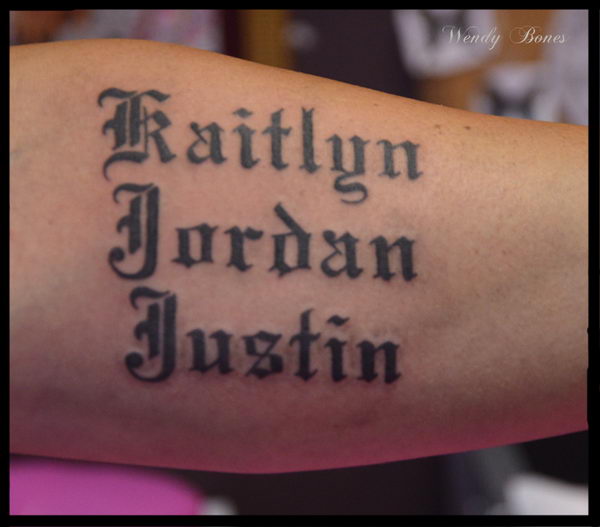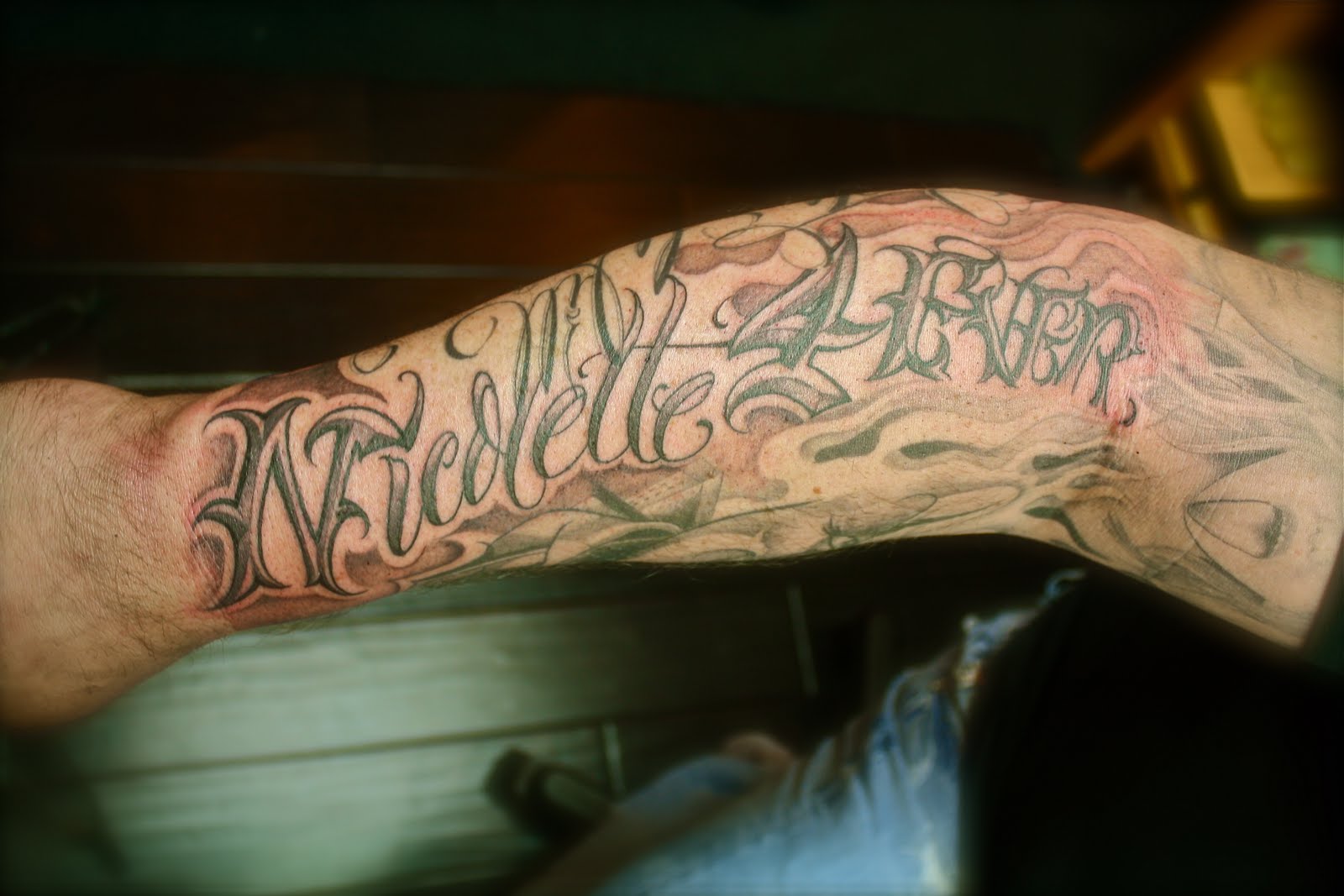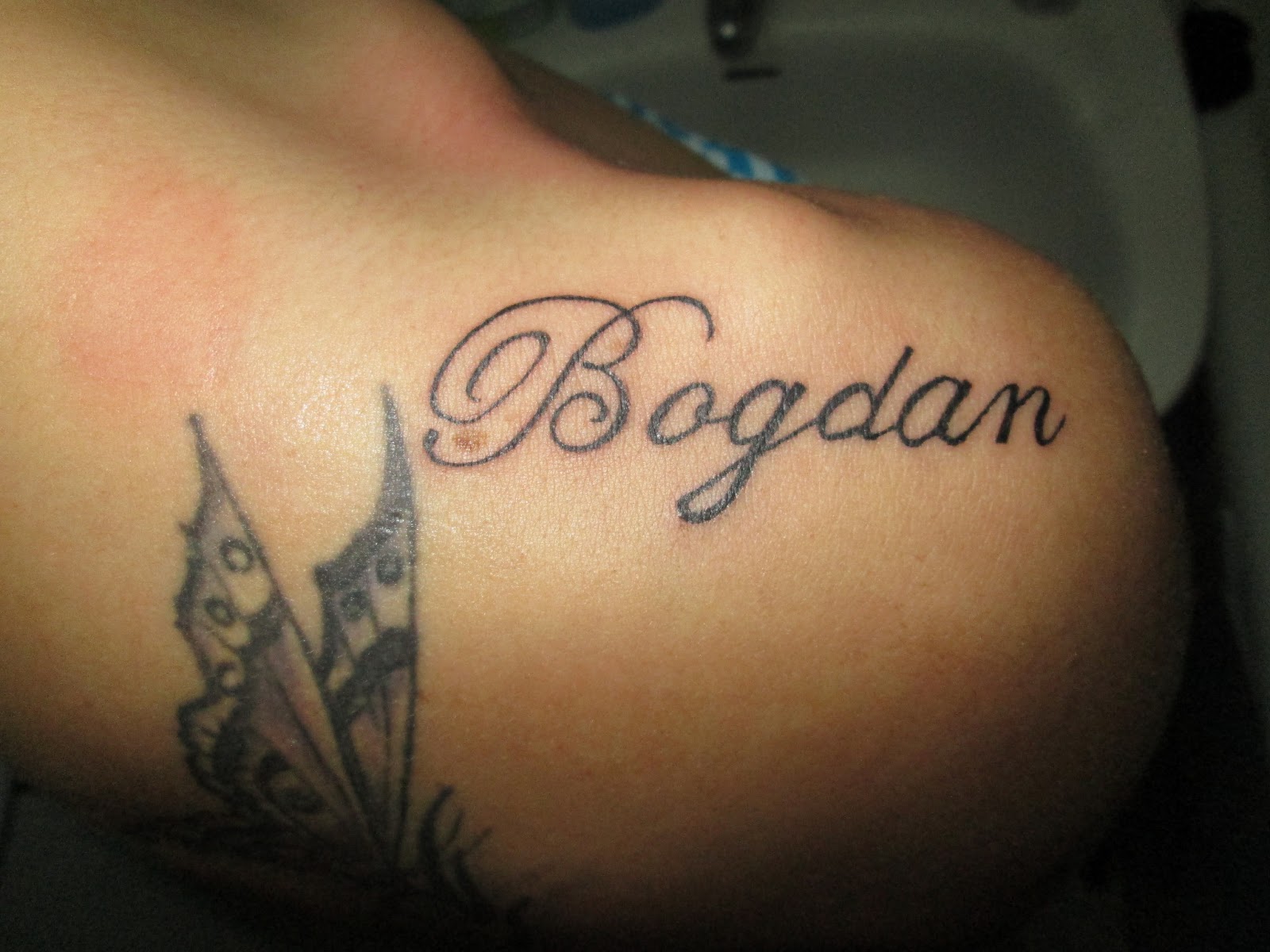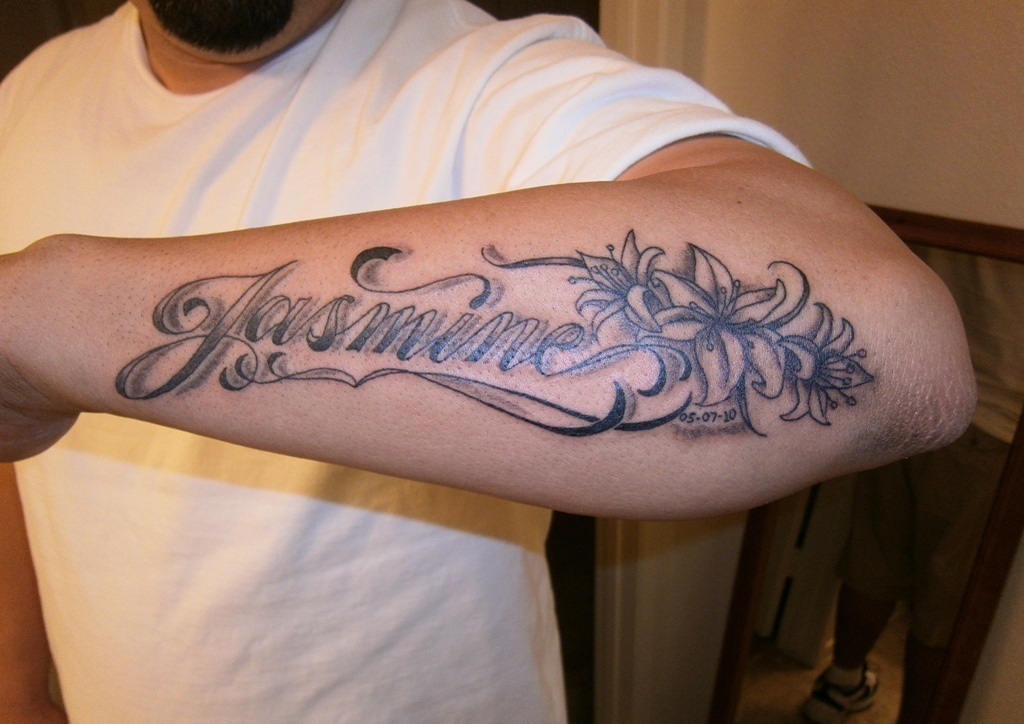
This font is very beautiful for name tattoos, due to its uniqueness. Fonts like the gypsy fonts, the google fonts and old english lettering are some of the ways used for designing the name tattoo designs. Lettering styles include tribal, traditional sailor, blackletter, fancy, cursive, script, etc.
Chicano Letters Are Commonly Used For Tattoos Graffiti And Other Lettering Designs.
Joti one font style for a name tattoo. Indie flower font style for a name tattoo. 231 free tattoo fonts · 1001 fonts
We identified it from honorable source. If you’re looking for an initial name tattoo, you should look into different tattoo fonts to find the one that’s right for you. What is the best font for tattoo names?best tattoo fontstattoo font 1:
Just as the name suggests, starellela is a beautiful tattoo script font that comes decorated in starry diamonds in each letter. It’s one of the best tattoo fonts that will instantly grab your readers’ attention, and keep it there. It has gained around 10000 installs so far, with an average rating of 4.0 out of 5 in the play store.
Incorporating The Butterflies And The Different Colors Used Also Brings Life And Beauty To The Design
Starting off our list we have the always beside you font. 35 best script cursive fonts 2022. You can have all the attractive modern and condensed designs with it.